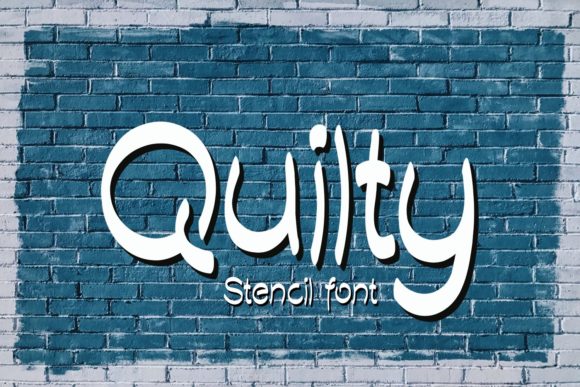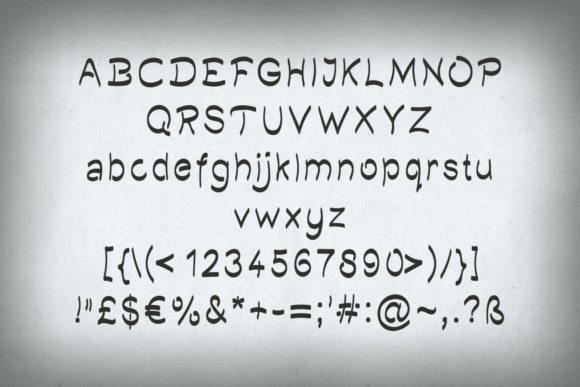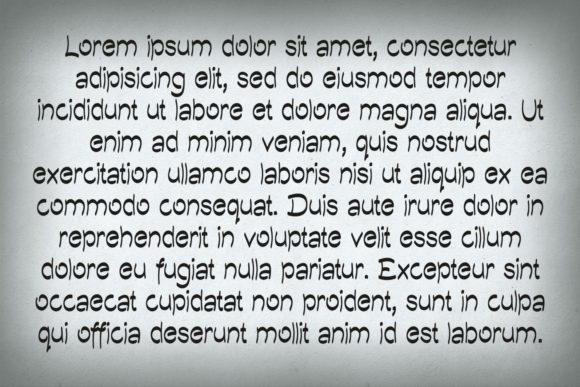
Quilty Font
About the Quilty Font
Unleash your creativity with Quilty Font, a versatile font perfect for a wide range of applications. Quilty is a carefully crafted stencil font, without closed loops on the characters. It will add a casual charm to any creative project.
Quilty’s open, stencil-like construction makes it ideal for headlines, short slogans, and branding applications where a bold, slightly informal feel is desired. It works exceptionally well on posters, signage, and packaging for products targeting a young, active audience. Avoid using Quilty for large amounts of body text or UI elements; its lack of serifs and open forms can hinder readability in extended passages.
The font’s core personality is playful yet confident. To balance this, pair Quilty with a clean sans-serif like Open Sans for body copy, or a more refined serif such as Garamond for a touch of elegance in supporting text. For a more modern and edgy look, consider pairing it with a geometric sans-serif font like Futura.
This combination of boldness and approachability makes Quilty a strong choice for brands focusing on streetwear, craft beer, or outdoor adventure. Its casual charm ensures it will not feel out of place in a more informal setting, adding a distinctive and memorable touch.